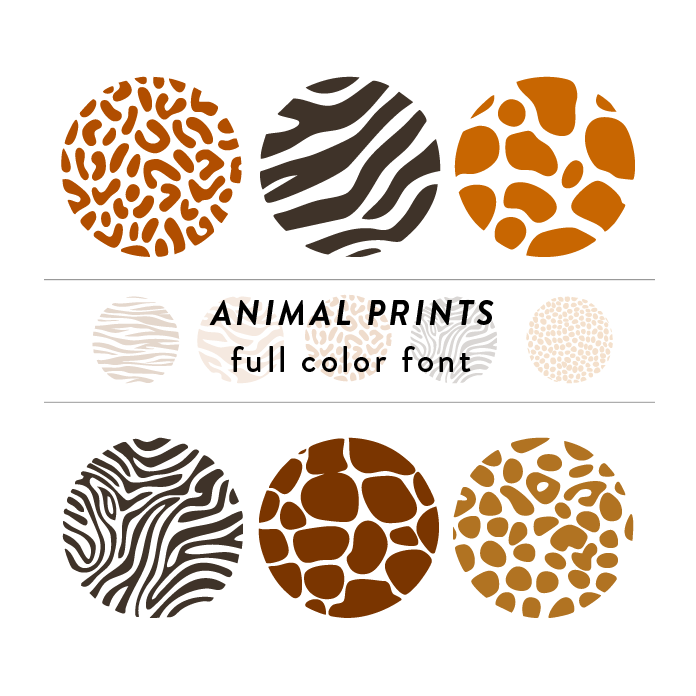
Color fonts will appear black if not used in a compatible program. This font type should be used with Silhouette Studio to appear in color. Make a ROAR with this collection of animals patterns. Zerba, snake, leopard, cheetah, turtle, snake, alligator and more! for your home decor, vinyl, apparel and other projects.